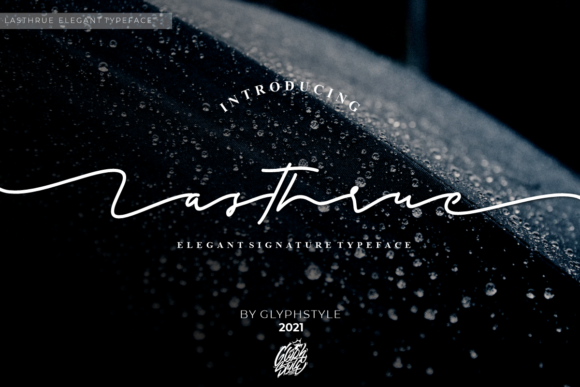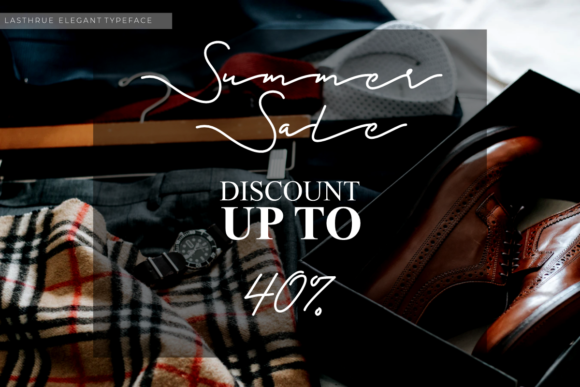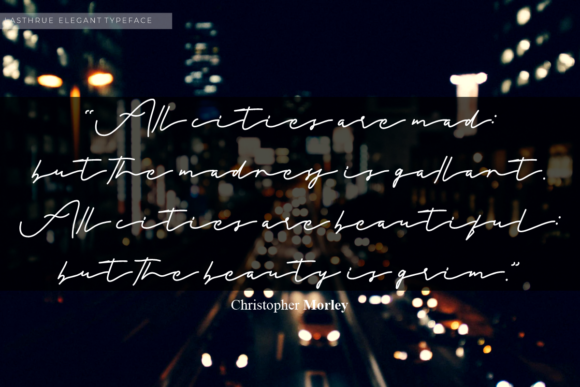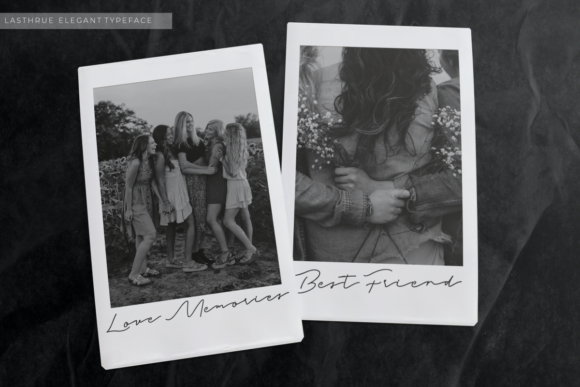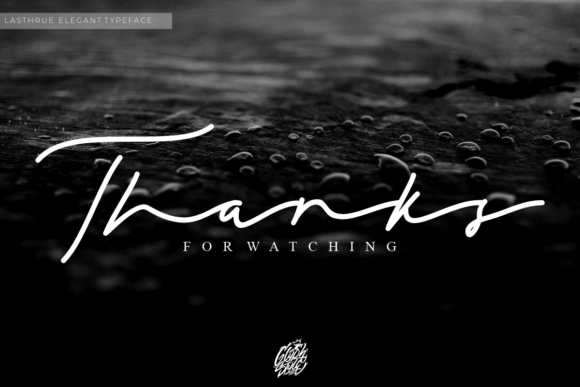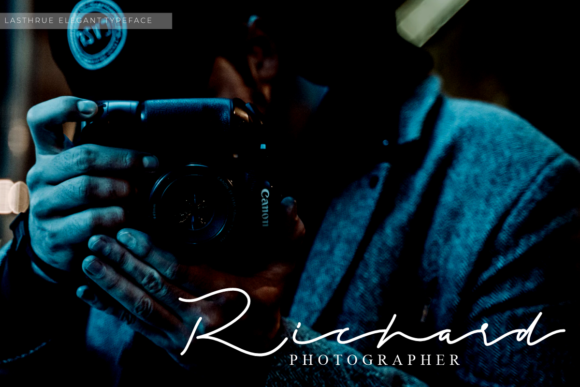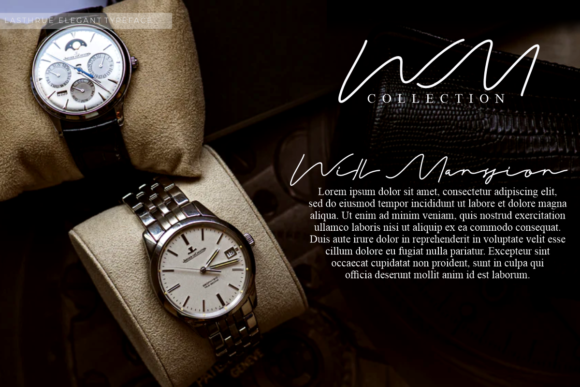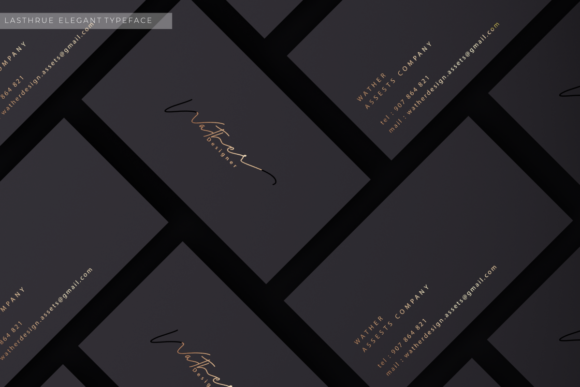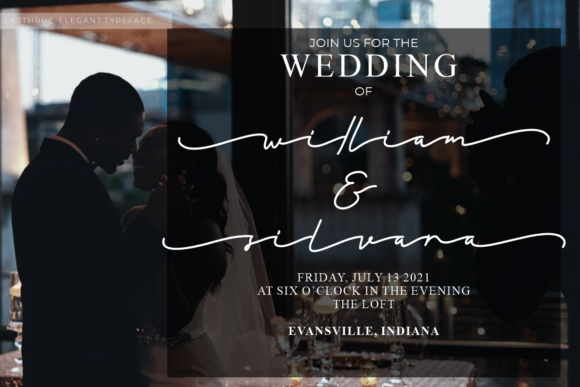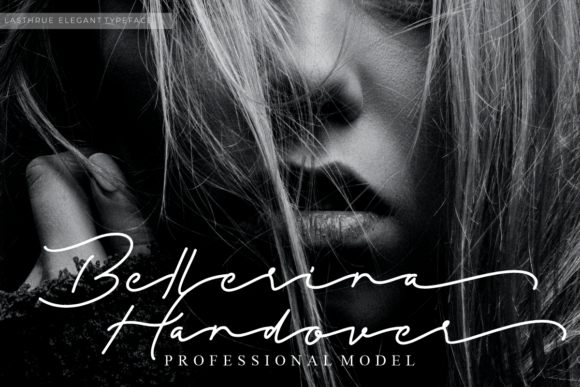
Lasthrue Font
About Lasthrue Font
Lasthrue is a stylish and fashionable script font that exudes a delicate and classy look. Its balanced and varied strokes give it a perfect balance between not being too thin or too thick, creating a harmonious and elegant appearance that enhances the beauty of your projects.
The font’s fashion-forward design makes it a versatile choice for a wide range of creative endeavors. Whether used in branding, logos, invitations, stationery, social media posts, or any other design project, Lasthrue adds a touch of sophistication and charm to each application.
The inclusion of PUA encoding means that you can easily access all of the glyphs and swashes available in the font. This opens up a world of design possibilities, allowing you to add special characters, ligatures, and stylistic alternates effortlessly, ensuring your designs have a unique and personalized touch.
For fashion-related projects, Lasthrue’s stylish and classy look is a perfect match. It can be used for clothing labels, lookbooks, fashion magazines, and other fashion-related branding and marketing materials, adding a touch of elegance and allure to the overall aesthetic.
Lasthrue’s readability and legibility also make it suitable for headlines and titles, ensuring that your messages stand out with style and sophistication. Its versatility allows it to adapt to different design styles, making it a reliable font choice for various creative projects.
In summary, Lasthrue is a fashionable and elegant script font that elevates the beauty of your designs. Its delicate and classy appearance, combined with PUA encoding for easy access to various glyphs and swashes, makes it a valuable asset for designers seeking to create stylish and refined visuals. Embrace the allure of Lasthrue in your projects and watch it add a touch of sophistication and grace to your creative endeavors.